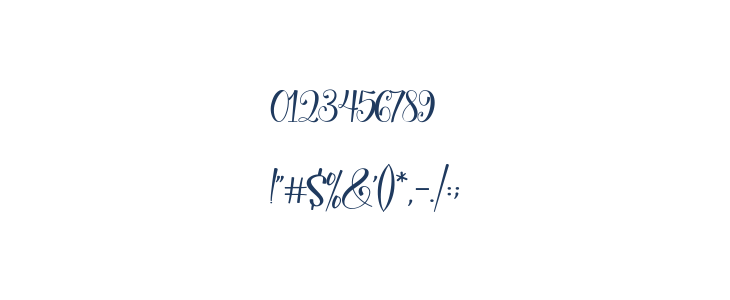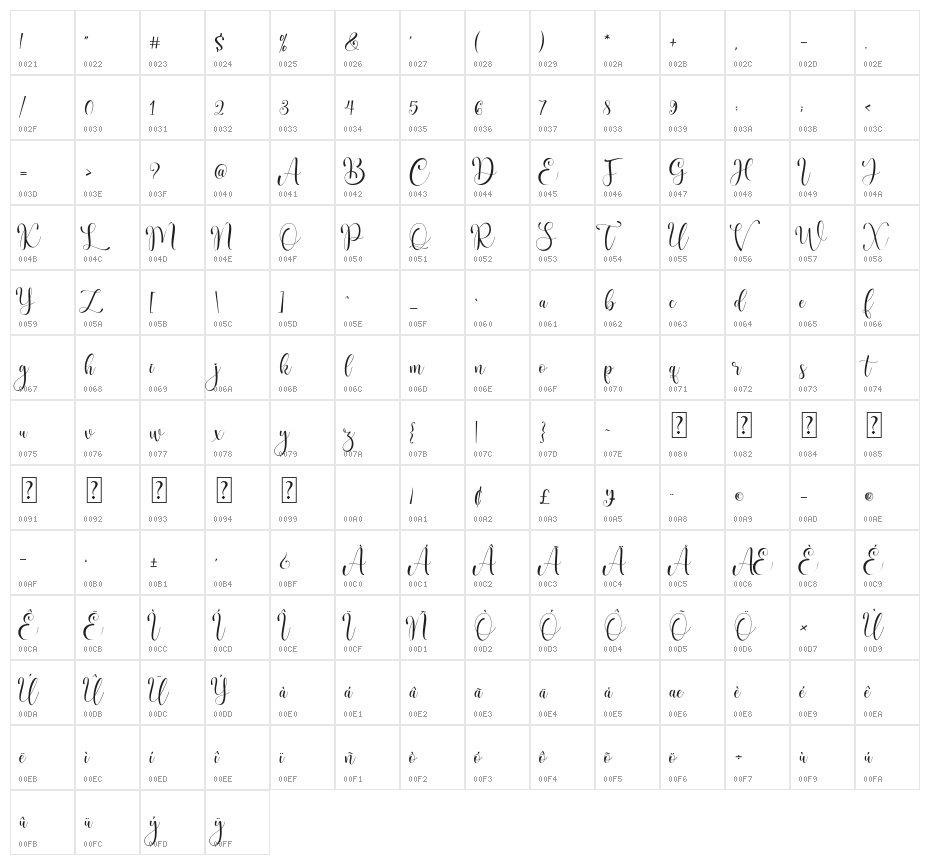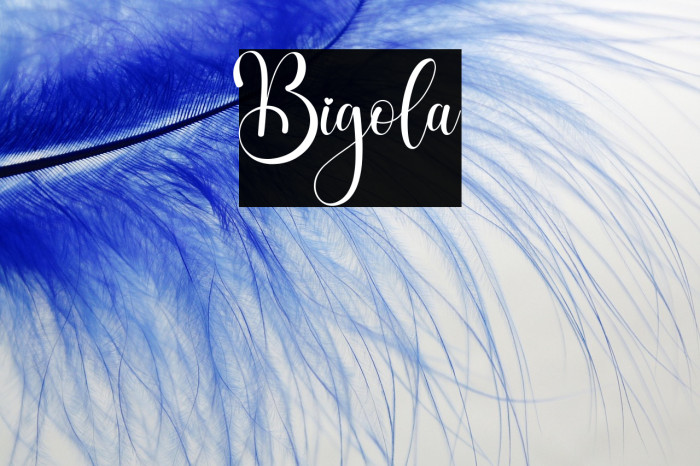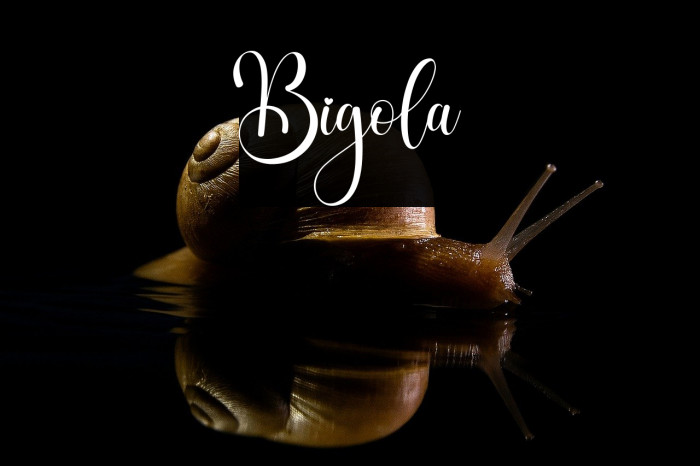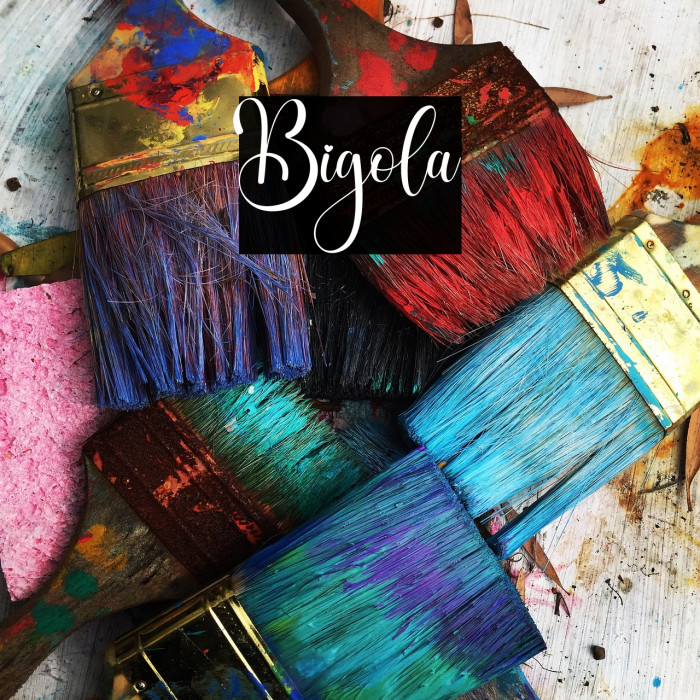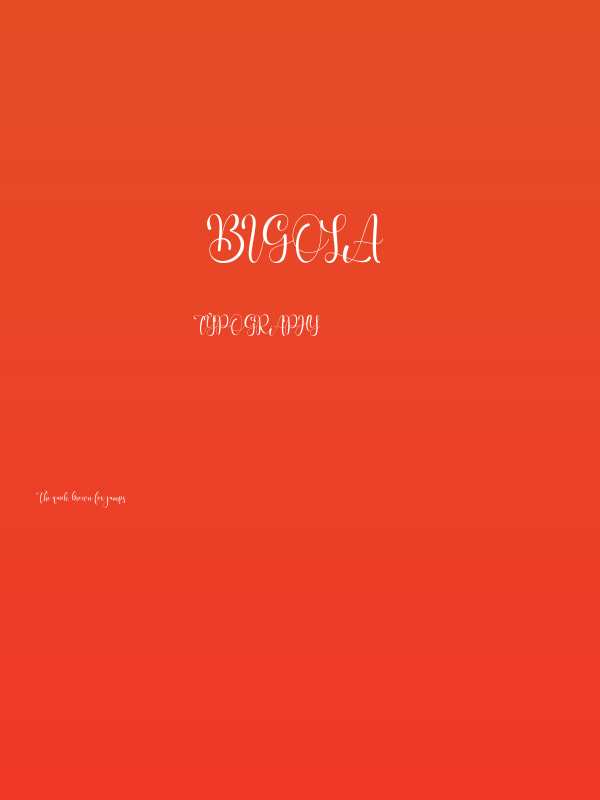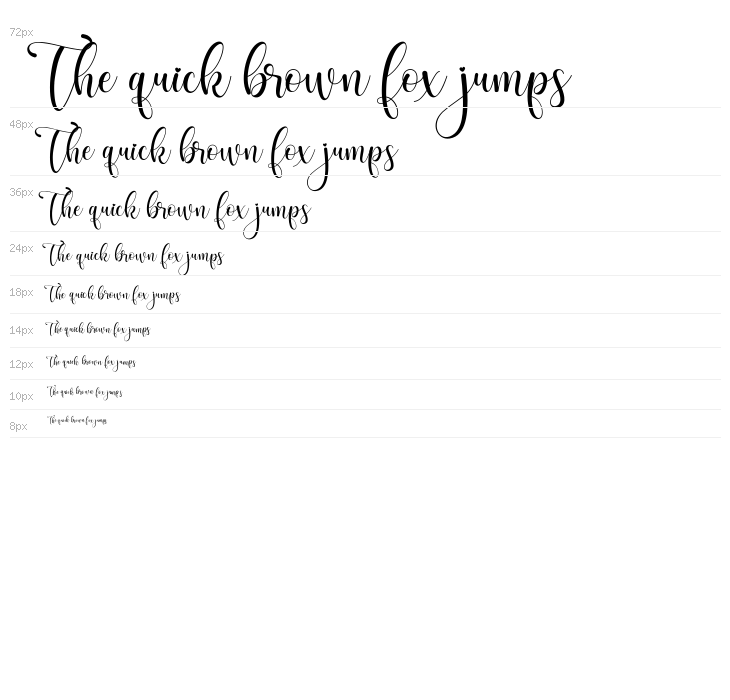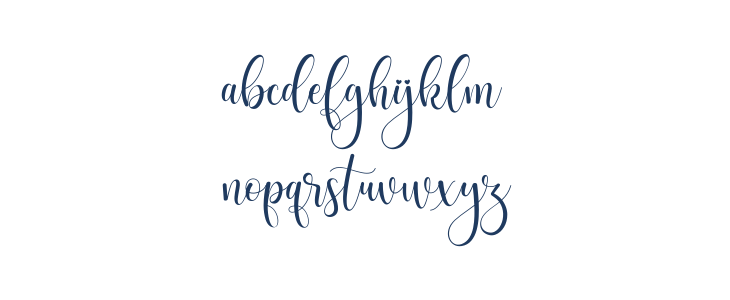
Bigola Font
Bigola Description
This font exudes elegance and sophistication with its flowing, cursive style. The letters are intricately designed with graceful loops and swashes, giving it a luxurious and artistic feel. The uppercase letters are particularly ornate, while the lowercase letters maintain a consistent fluidity. The numbers and special characters are equally stylized, ensuring a cohesive look across all text. This font is perfect for projects that require a touch of class and creativity, such as wedding invitations, branding, and high-end product packaging. Its decorative nature makes it stand out, while its readability remains intact.
Use CaseLogos, Headlines, Invitations
Proposed ProjectsWedding invitations, luxury branding, artistic posters, high-end product packaging.